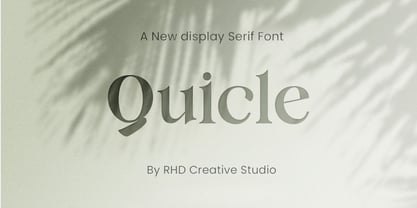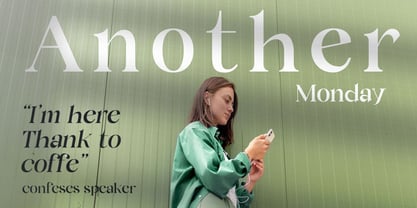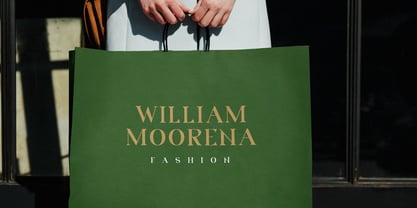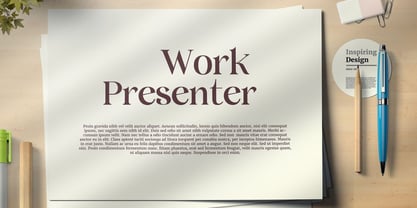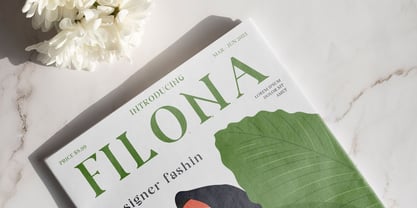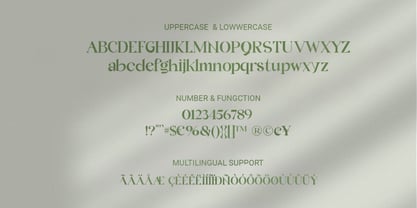
Quicle
Die Schriftfamilie Quicle wurde von entworfen und von RHD Creative veröffentlicht. Quicle enthält 1 Stile. Mehr über diese Familie
Hello everyone, I would like to introduce Quicle New Display Serif Font.
Quicle New Display Serif Font with Handmade character. Quicle bring New Display Serif, Modern font to make your design project stand out! Quicle is a perfectly choice for any creative endeavor, creating, modern, chic, lifestyle design such as logotype, title, cover, branding, invitations, wedding designs, display and magazine, social media posts, advertisements, printed quotes, product packaging, corporate brand, product designs, labels, photography, watermarks, special events and any other project with modern touch.
RHD Creative Studio is a small, independent type foundry run by a designer with a passion for type. Headquartered in Medan, Indonesia. we started the studio in 2022 with a simple goal: to create typefaces that feel fresh, useful, and a little different.Our work is all about balancing clean, functional design with personality, whether it’s a modern sans serif for a branding project or a quirky display typeface for something more playful. Each typeface is carefully crafted with attention to detail and a passion for typography.We believe that typefaces should be beautiful and useful as tools that help designers better tell their stories. Our goal is to continue expanding our library of well-crafted, thoughtfully designed typefaces that are rooted in real-world design needs.